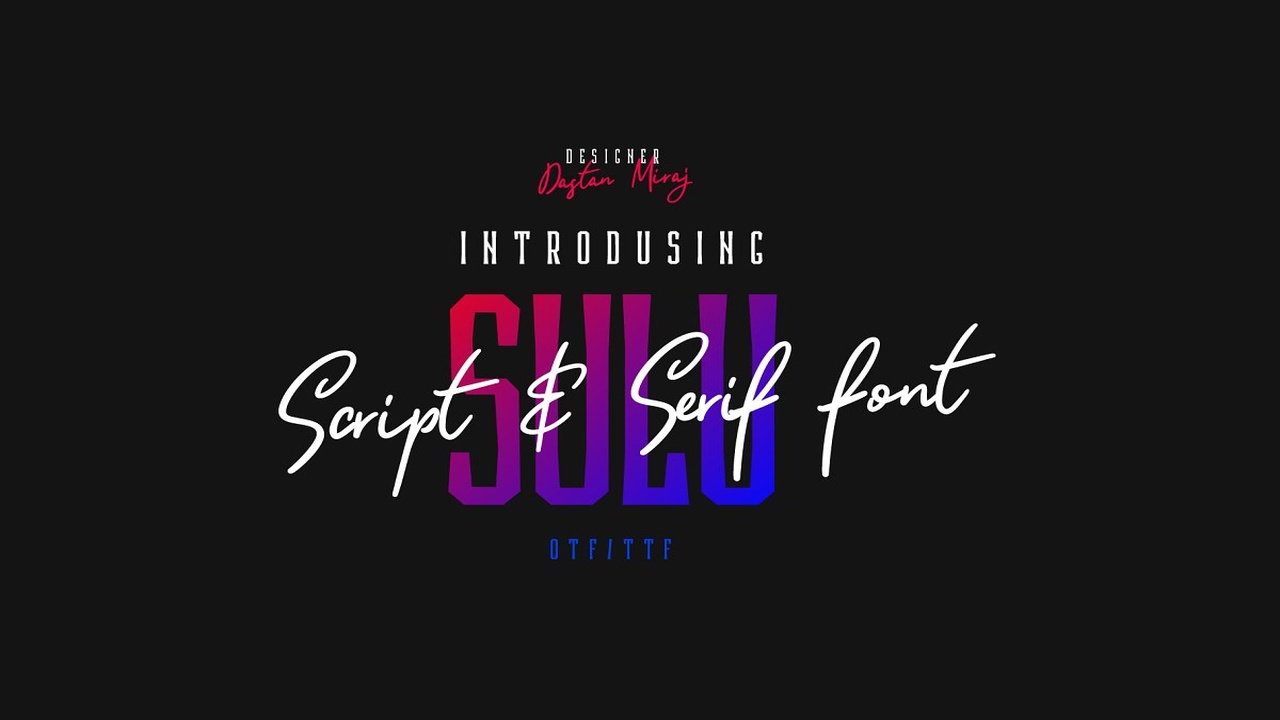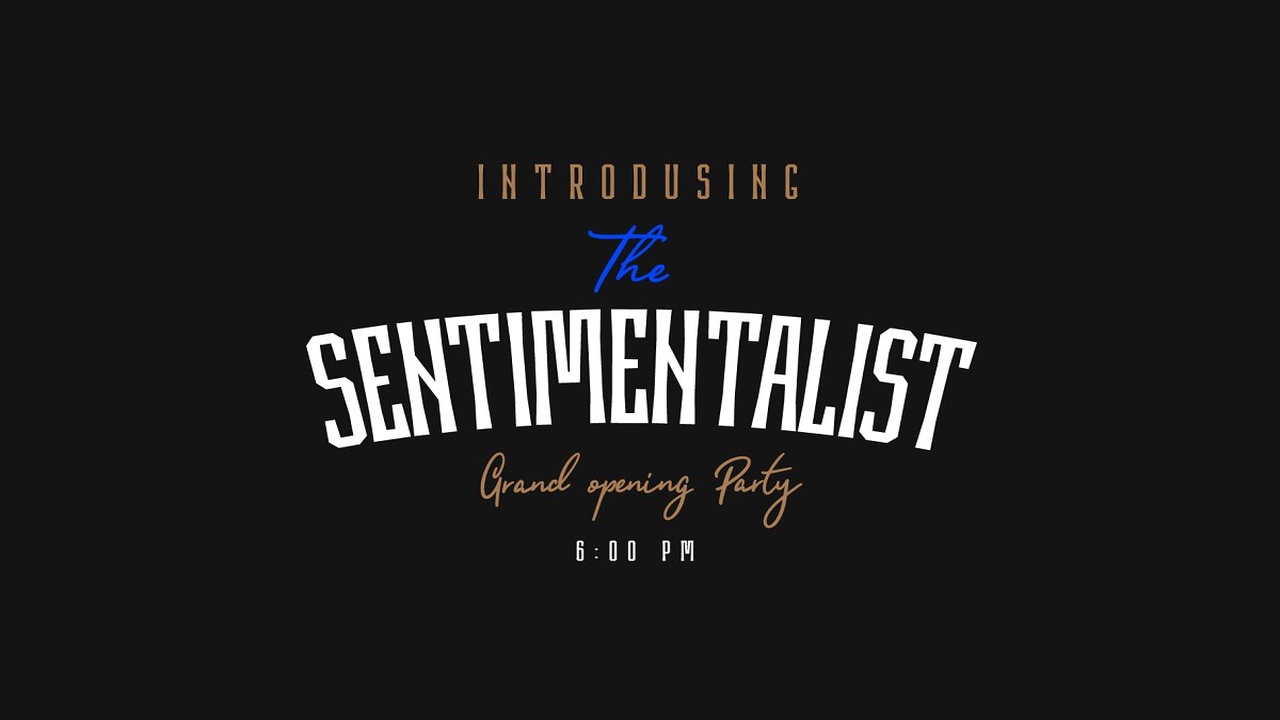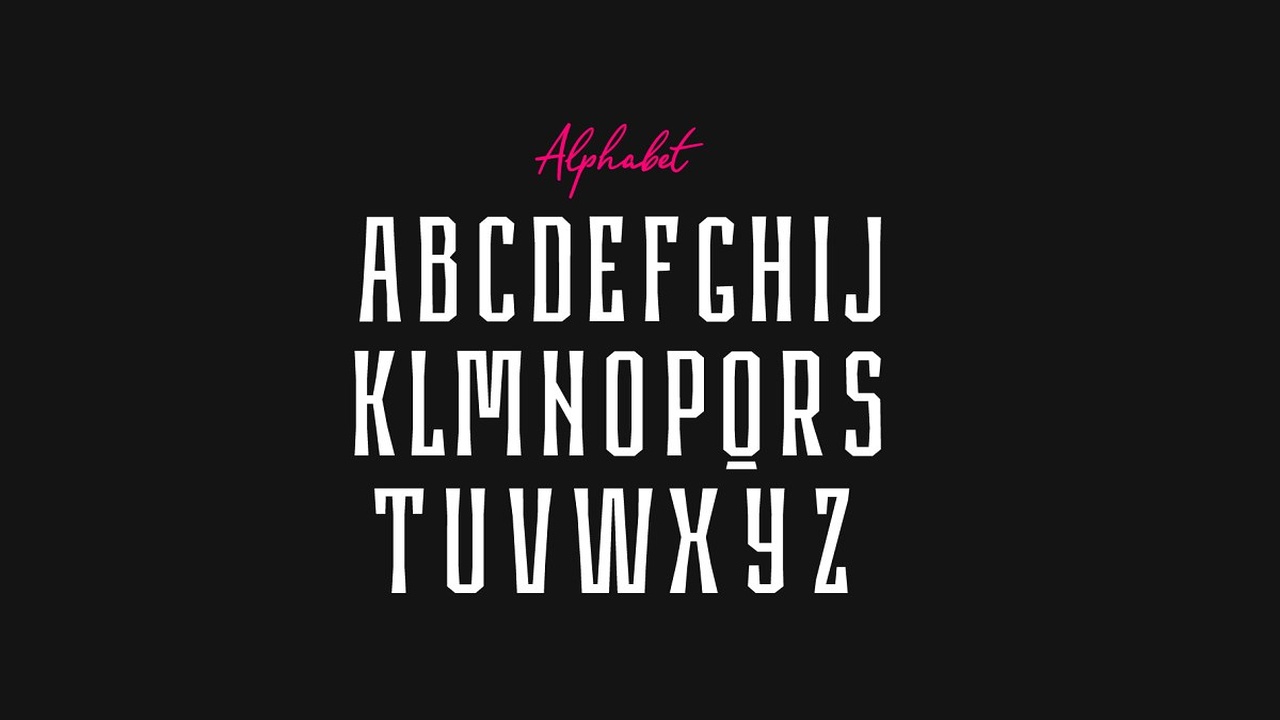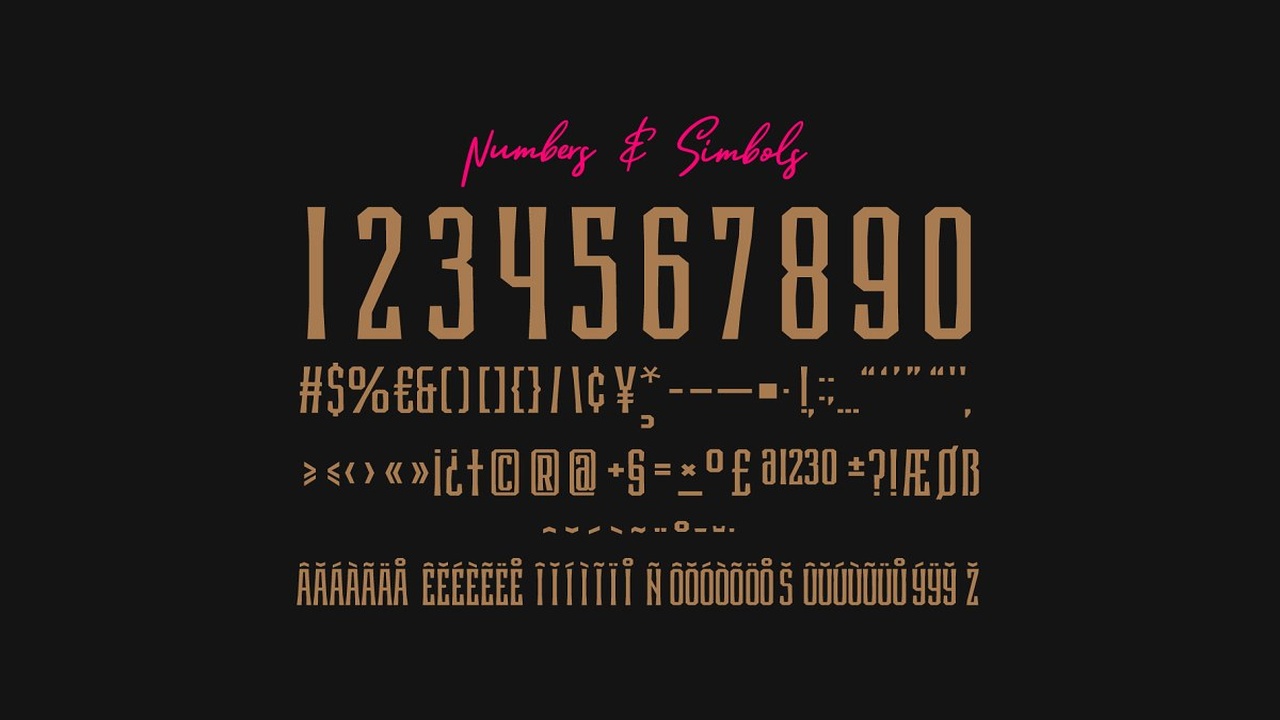
About the Sulu Duo Font
Sulu is perfectly suited to signature, stationery, logo, typography quotes, magazine or book cover, website header, clothing, branding, packaging design and more, License: This font included for personal, commercial use, multiple projects, behalf of a client, Fonts may be printed on to products that are subsequently sold, websites and within website design